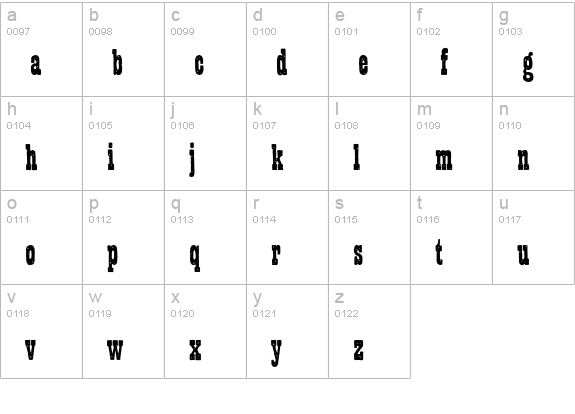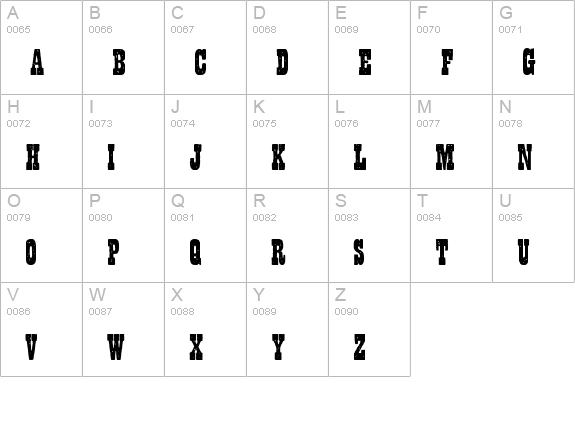
Wanted Std Font Details
Wanted Std is a striking and versatile font that exudes a sense of adventure and boldness. With its clean lines and strong presence, this font is perfect for capturing attention and making a statement. Whether you're designing a poster, logo, or any other creative project, Wanted Std is sure to add a touch of uniqueness and style. But what makes Wanted Std even more desirable is that it is available for free download at FontsMarket.com. Yes, you read that right – this incredible font can be yours without any cost. FontsMarket.com is a trusted platform where designers and enthusiasts can find a wide range of high-quality fonts, and Wanted Std is one of the gems in their collection. By offering Wanted Std for free, FontsMarket.com aims to make exceptional typography accessible to everyone. This font is not only visually appealing but also easy to use, making it a valuable asset for both professionals and amateurs alike. Whether you're a seasoned designer or just getting started, Wanted Std will elevate your creations to new heights. So, why wait? Head over to FontsMarket.com and download Wanted Std today. Unleash your creativity and let this font become the missing piece in your design puzzle. Don't miss out on this opportunity to enhance your projects with a font that is not only captivating but also freely available. Start creating and let Wanted Std take your designs to the next level.